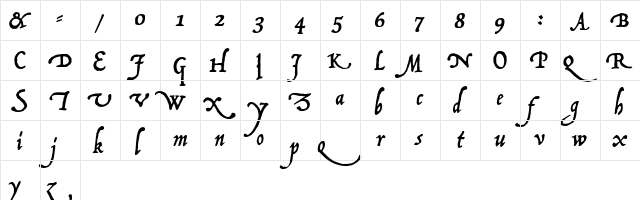
Operina Corsivo P22 Regular
Design Context for Operina Corsivo P22 Typeface
Operina Corsivo P22 is a composed and adaptable typeface that performs quietly and consistently across a wide range of design contexts.